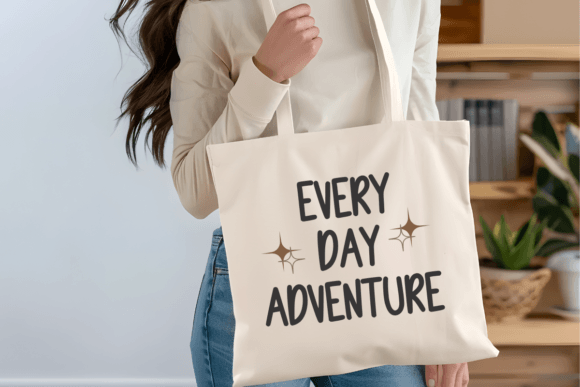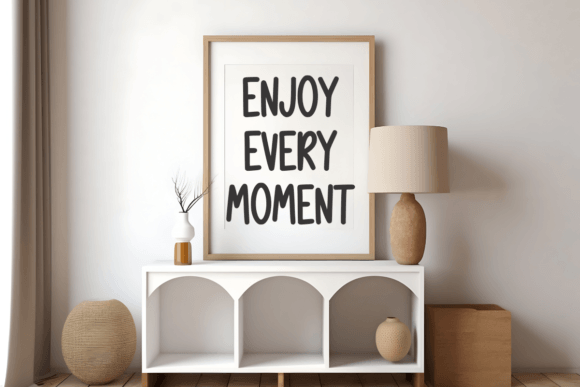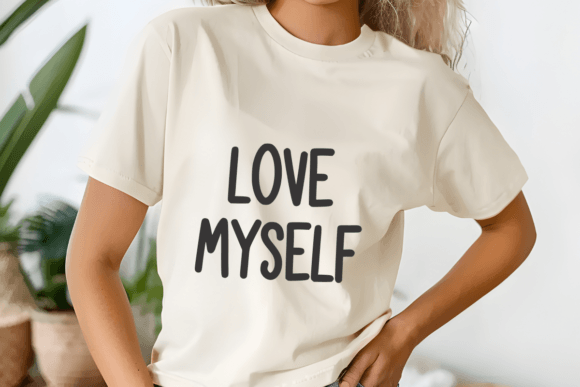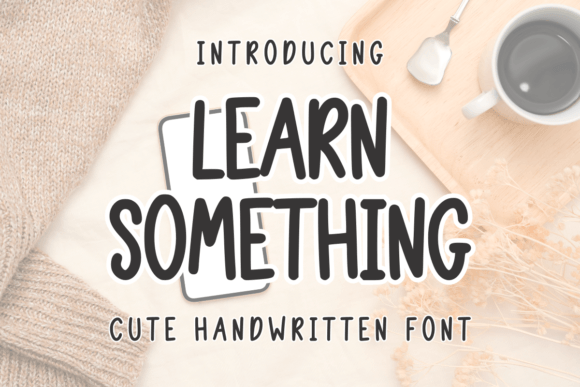
Introduction to Learn Something Font
Learn Somethin is a simple and quirky handwritten font.
Add it to your creative projects and enjoy the results .
Key Features of Learn Something Font
Why Choose Learn Something Font?
Learn Something Font offers exceptional quality and versatility, making it a valuable addition to your design toolkit. Whether you’re creating for personal projects or commercial use, Learn Something Font delivers professional results.